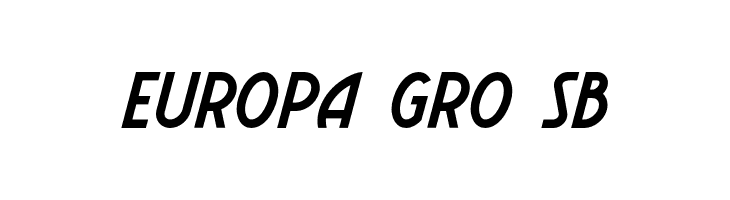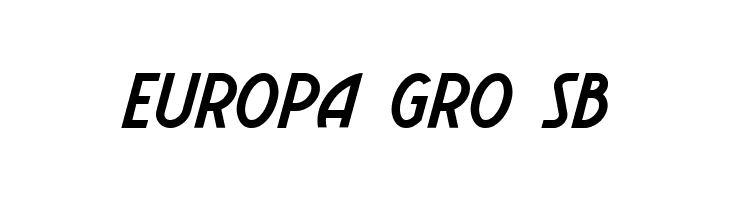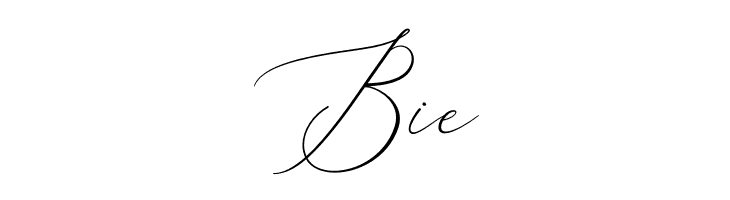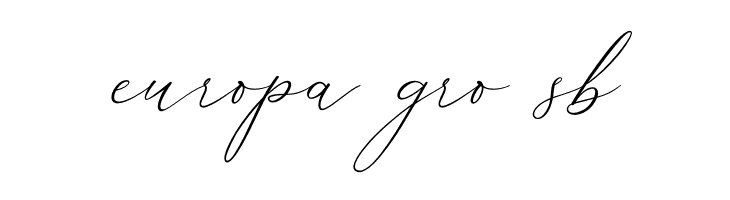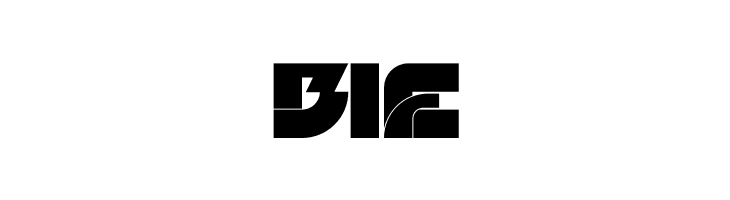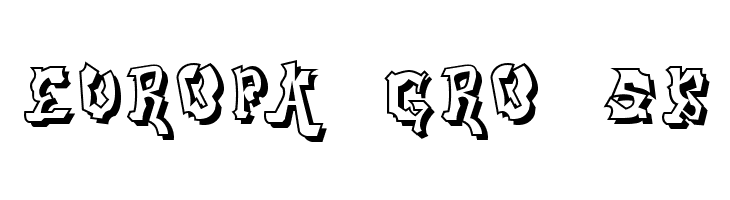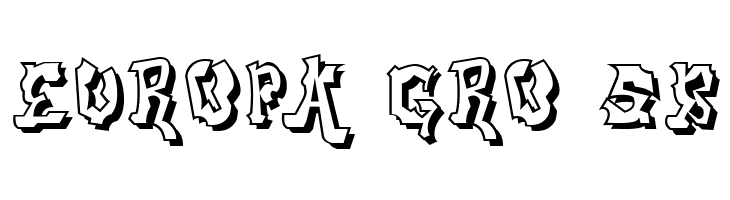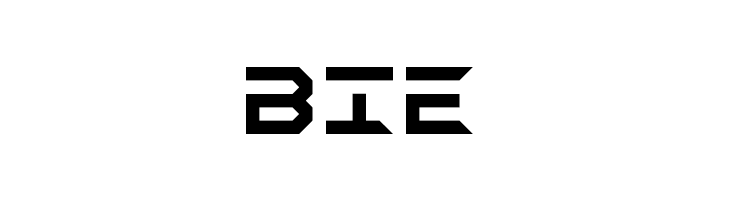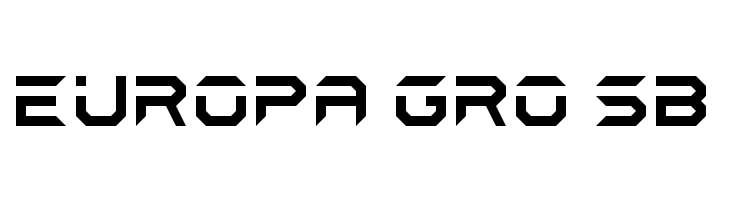
A bold, graffiti-style font with angular, dynamic forms and a three-dimensional effect.
A futuristic, angular font with a bold, sci-fi aesthetic.
A graceful script font with flowing, delicate strokes and elegant flourishes.
A bold, distressed font with a vintage, industrial style.
A bold, geometric slab serif font with a modern and industrial feel.
A dynamic, slanted font with bold, clean lines and a modern aesthetic.
A dynamic, forward-leaning font with bold, angular characters.
Futuristic geometric display font.